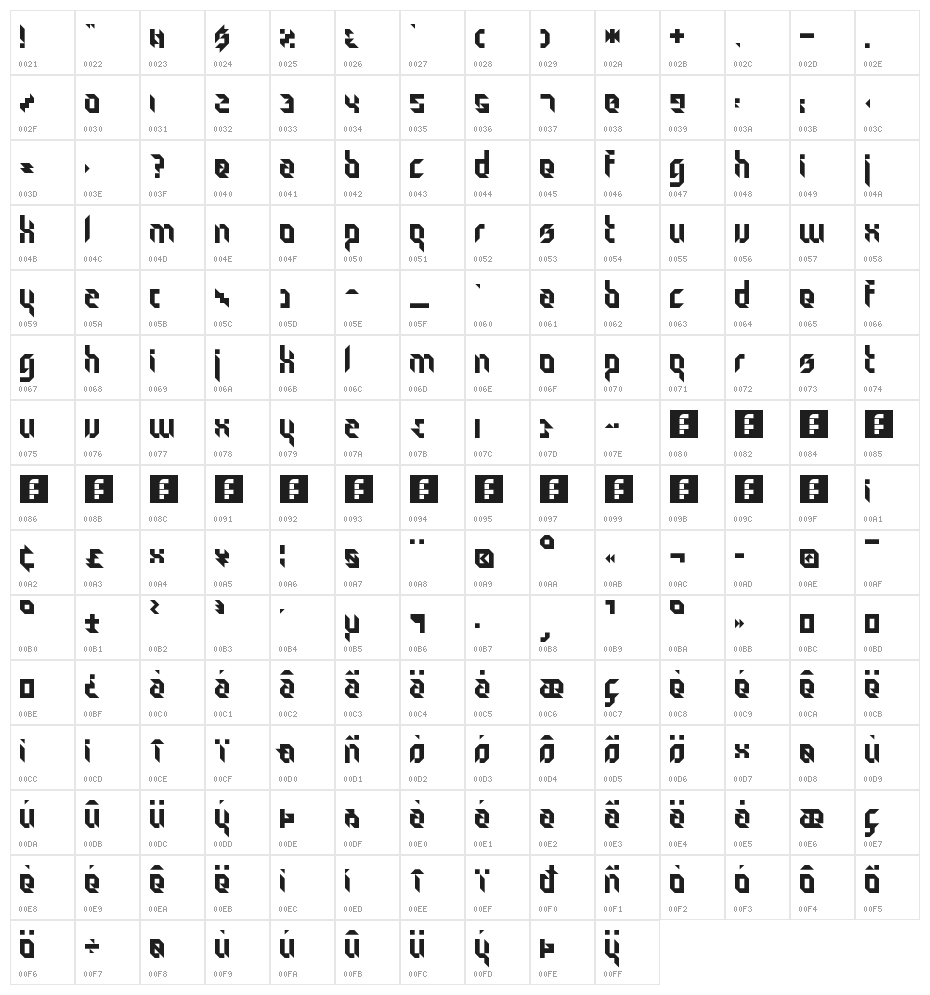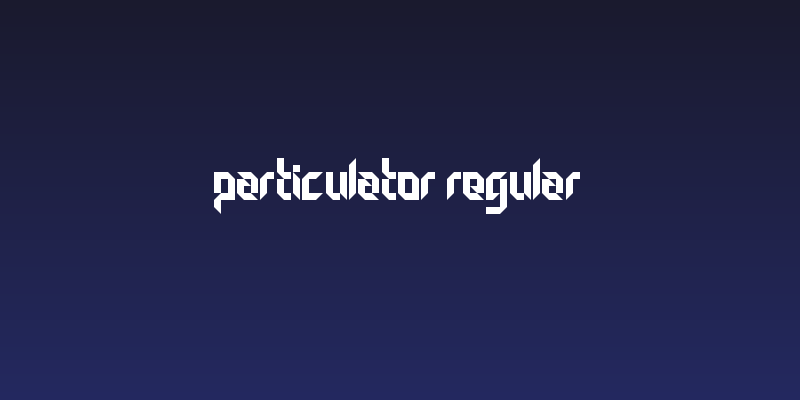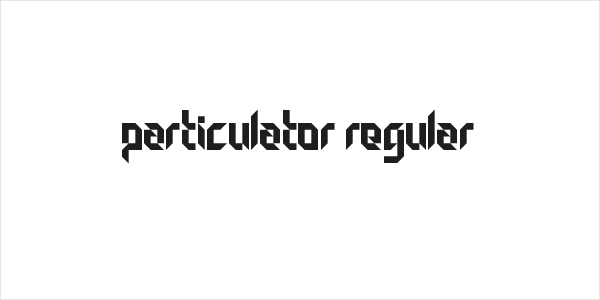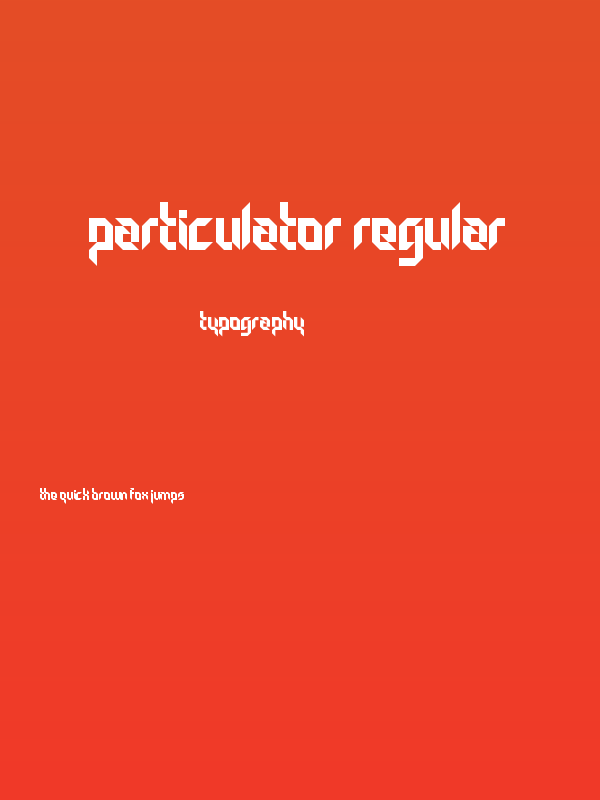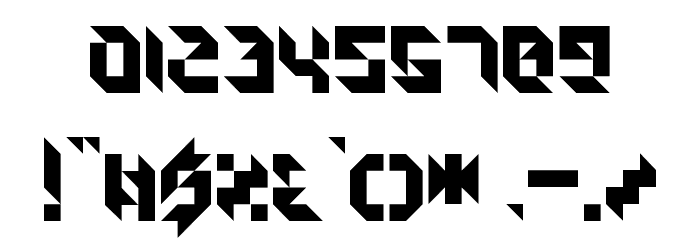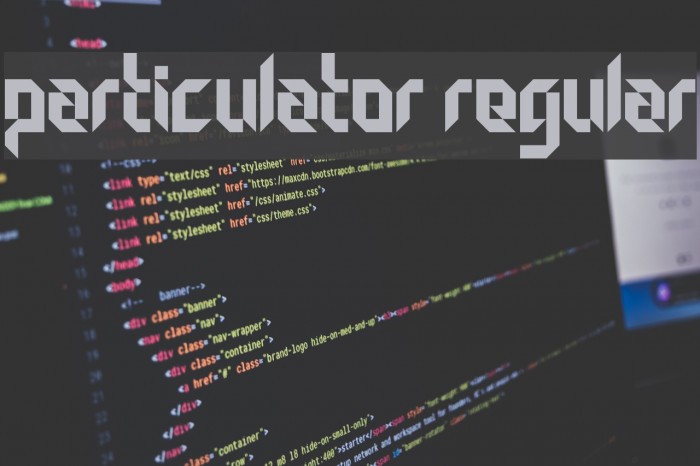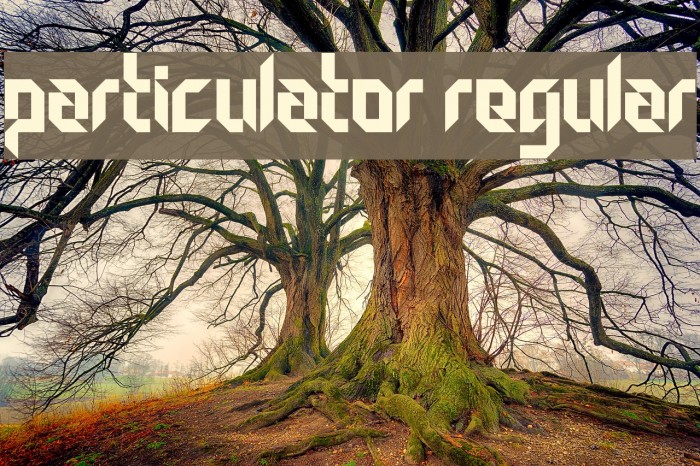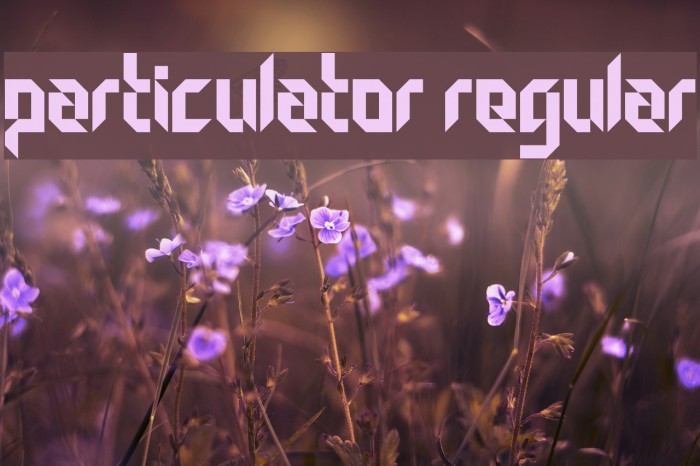
Particulator Regular Font
Particulator Regular Description
This font features a bold, geometric design with sharp angles and a futuristic aesthetic. The characters are constructed with a series of straight lines and angular cuts, giving it a distinctive, edgy appearance. The uppercase and lowercase letters maintain a consistent style, with each character exhibiting a unique, blocky form. The numerals and special characters follow the same design principles, ensuring a cohesive look across all elements. This font's striking visual impact makes it ideal for projects that require a modern and unconventional typeface.
| Overall Style | Futuristic, Modern |
| Proposed Projects | Ideal for sci-fi themed designs, video game graphics, tech branding, and modern posters. |